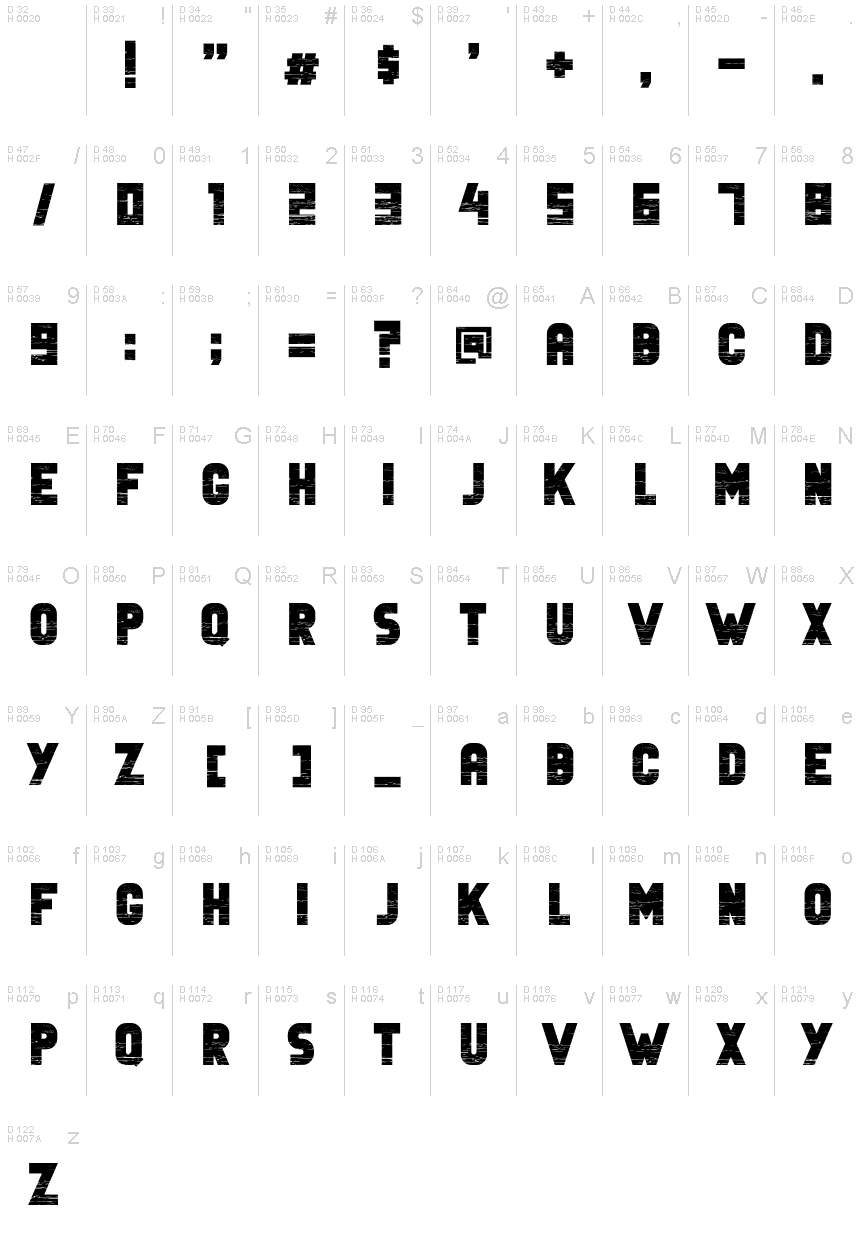
Legend Bold
With its rough, eroded style, Legend Bold is the typeface for those who want to make a bold and unforgettable statement. Designed by Design Vector10, this extra-bold display font is perfect for projects that require a touch of grit and character - from concert posters to edgy fashion branding. Its semi-condensed width makes it versatile enough for use in both headlines and body copy, while its unapologetic personality ensures that your message won't be forgotten anytime soon. Whether you're looking to add some edge to your designs or simply stand out from the crowd, Legend Bold is the font for you.